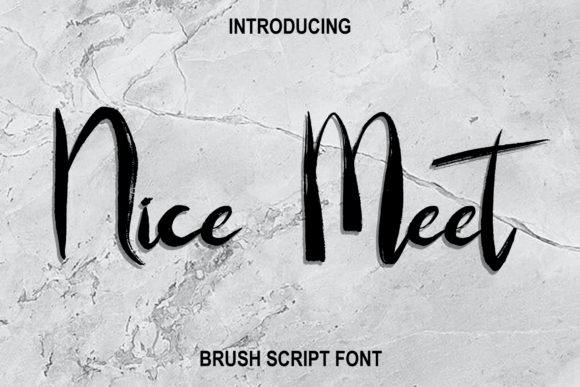
Welcome to the world of Nice Meet, where letters dance with grace and style. Dive into an enchanting realm where your designs will flourish like never before. This extraordinary script font, meticulously crafted by Fahmistudio99, is a delightful blend of modernity and whimsy, waiting to elevate your creations into a wonderland of beauty.
Nice Meet is not just a font; it's an experience. Its elegant strokes and charming curves will captivate your audience, creating a lasting impression that resonates with them. Whether you're working on school projects, personal branding, or captivating social media posts, Nice Meet will add a touch of enchantment that sets your designs apart.
With its undeniable allure, Nice Meet has become the font of choice for those seeking a unique and distinctive touch. It's the perfect companion for creating eye-catching posters and flyers, adding a touch of magic to your business cards and brochures, or crafting enchanting invitations and wedding stationery. Its versatility knows no bounds, making it an indispensable tool for anyone seeking to leave a lasting impression.
Step into the world of Nice Meet and discover the endless possibilities it holds. Let your creativity run wild as you weave tales of wonder and enchantment, leaving your audience spellbound by your designs. Each letter, meticulously crafted with precision, will dance across the screen, inviting your audience into a world where imagination knows no limits.
Unleash the power of Nice Meet today and embark on a creative journey like no other. As you explore the depths of this captivating font, you'll discover a world of enchantment that will leave you breathless. Take advantage of this extraordinary opportunity and let Nice Meet transform your designs into masterpieces of visual delight.